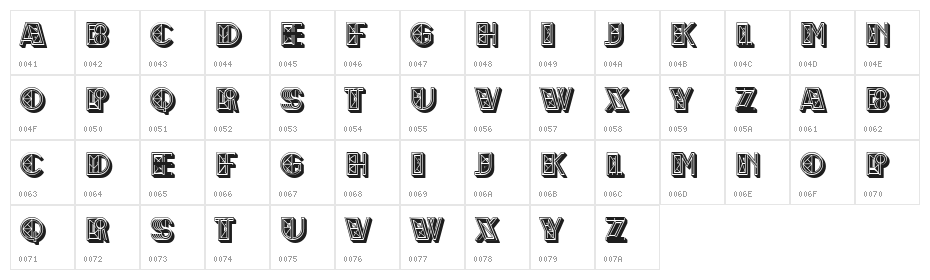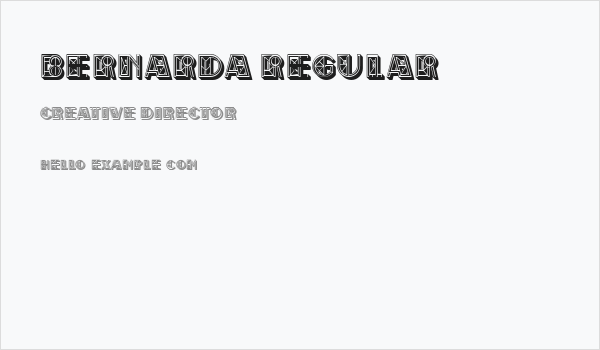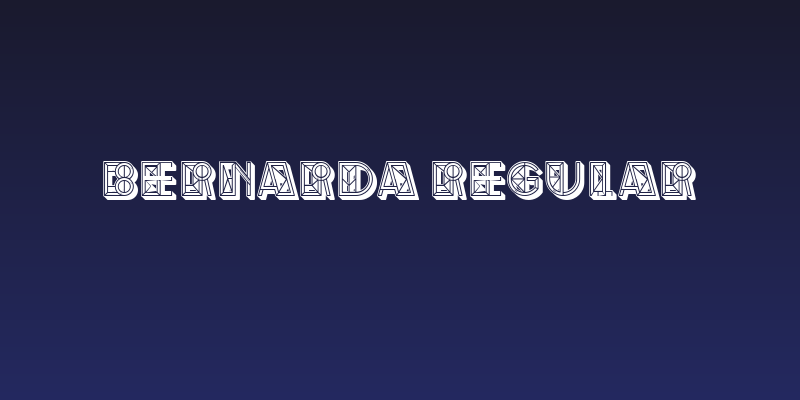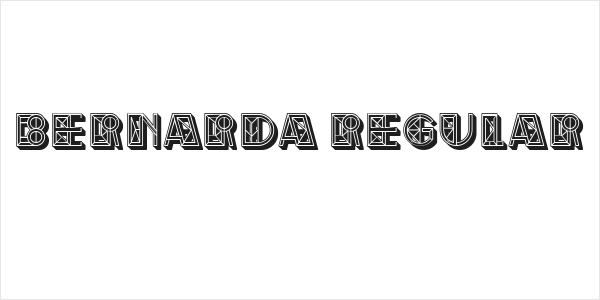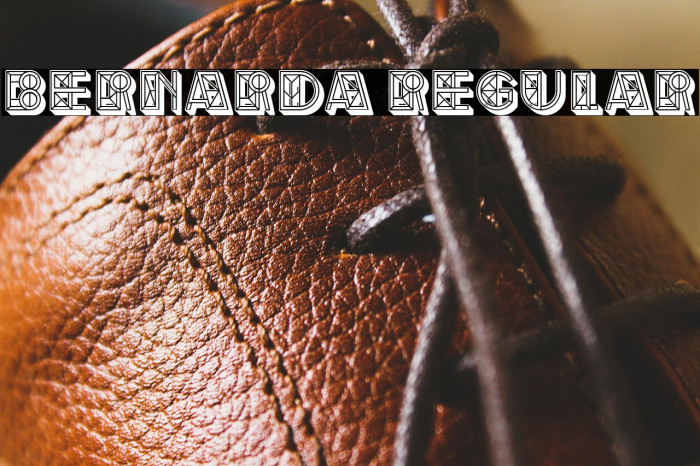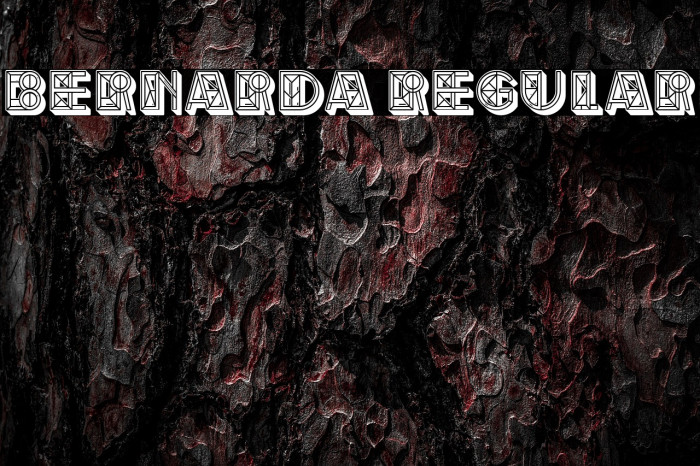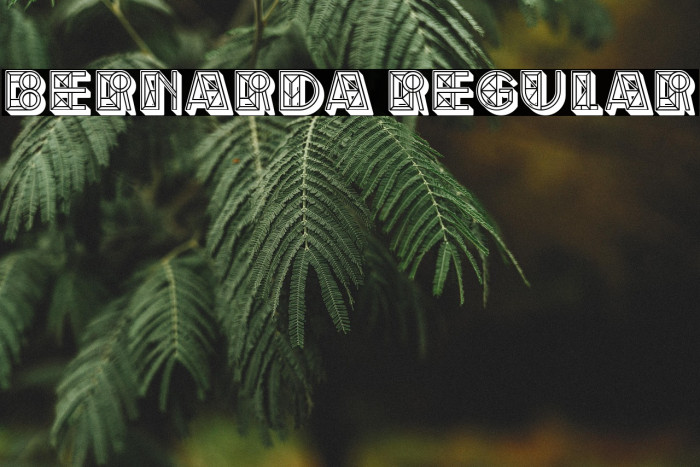
Bernarda Regular Font
Bernarda Regular Description
This font features a bold, geometric design with intricate line work and a three-dimensional effect. Each character is crafted with precision, incorporating a mix of solid and outlined elements that create a striking visual impact. The uppercase letters are particularly elaborate, with angular shapes and intersecting lines that add depth and complexity. The overall appearance is modern and artistic, making it suitable for projects that require a strong visual statement. The font's unique style is both decorative and functional, offering versatility in various design contexts.
| Proposed Projects | Ideal for branding, poster design, album covers, and any project needing a bold visual impact. |